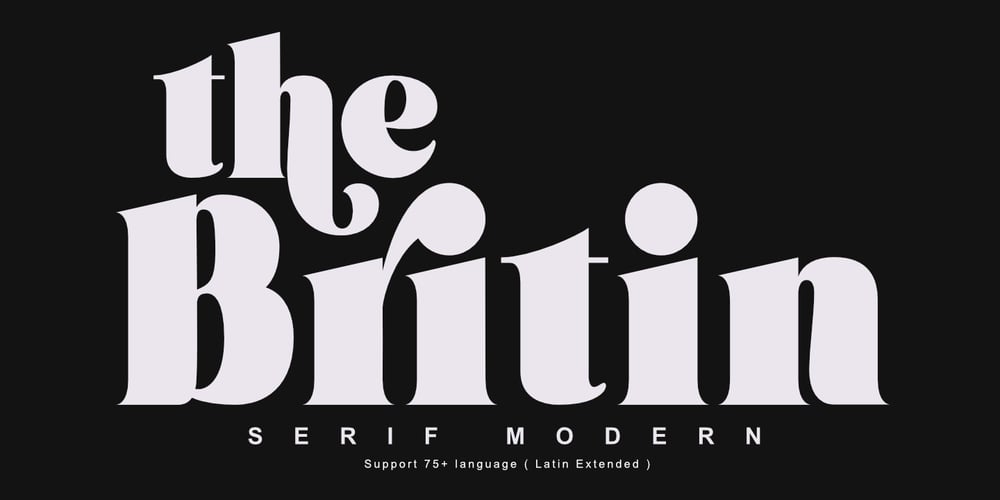
Britin Font Family was designed by Muhammad Romzul Khoir and published by Khoir. Britin contains 1 styles and family package options. The Britin is a masculine modern serif. Supported by a ligature font, a unique alternative that makes it suitable for all types of projects such as branding, cover design, web design, packaging, social media, logo design and many more, so what are you waiting for!What’s included? Uppercase Characters Lowercase Characters Support 75+ Language So what are you waiting for? immediately purchase this font, feel free to comment, or send me my PM or email at khoirtypework@gmail.com Thank you for seeing